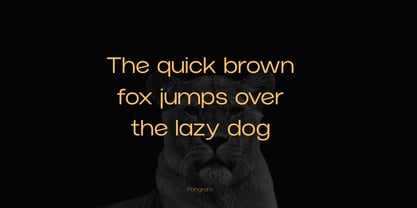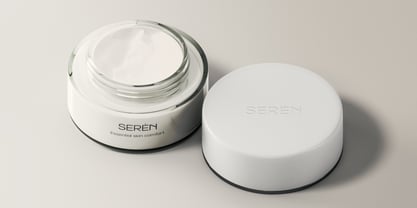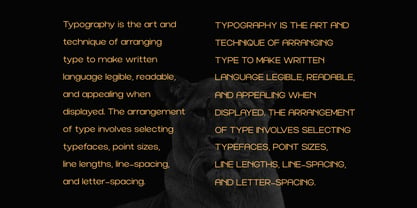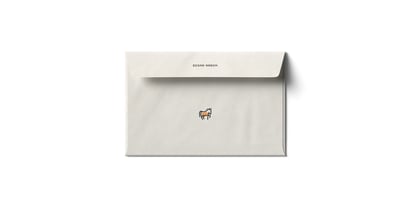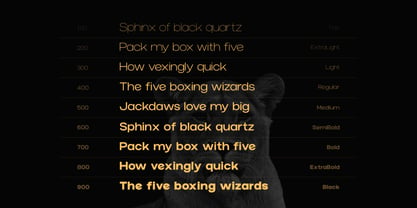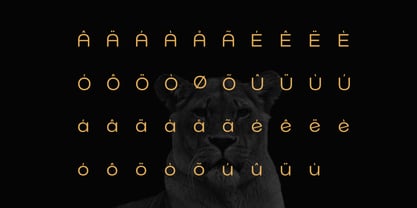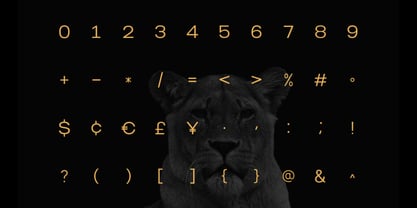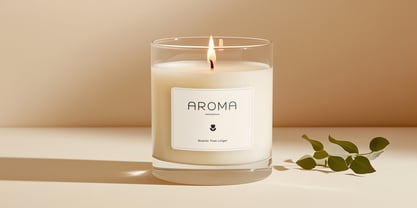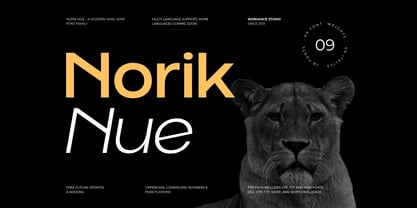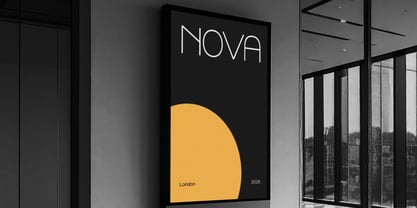
Norik Nue
by Webhance
The Norik Nue Font Family was designed by Ancy George and published by Webhance. Norik Nue contains 18 styles and family package options. More about this family
Introducing Norik Nue, a modern sans-serif font family created with clarity, balance, and precision. Designed in a clean and minimal style, Norik Nue is built for digital-first and professional design work. The family includes 9 carefully designed weights, from Thin to Heavy, with matching italics, providing 18 fonts in total. Each weight is crafted with consistent proportions, spacing, and alignment, making it easy to maintain visual consistency across different layouts and screen sizes. Norik Nue is suitable for branding systems, logo design, user interfaces, web design, landing pages, dashboards, mobile apps, SaaS platforms, presentations, posters, banners, Instagram posts, social media graphics, reels, video titles, motion graphics, video infographics, YouTube thumbnails, advertising creatives, pitch decks, and digital marketing materials. Every style is optimized for screen readability and print clarity, ensuring reliable results across modern platforms.